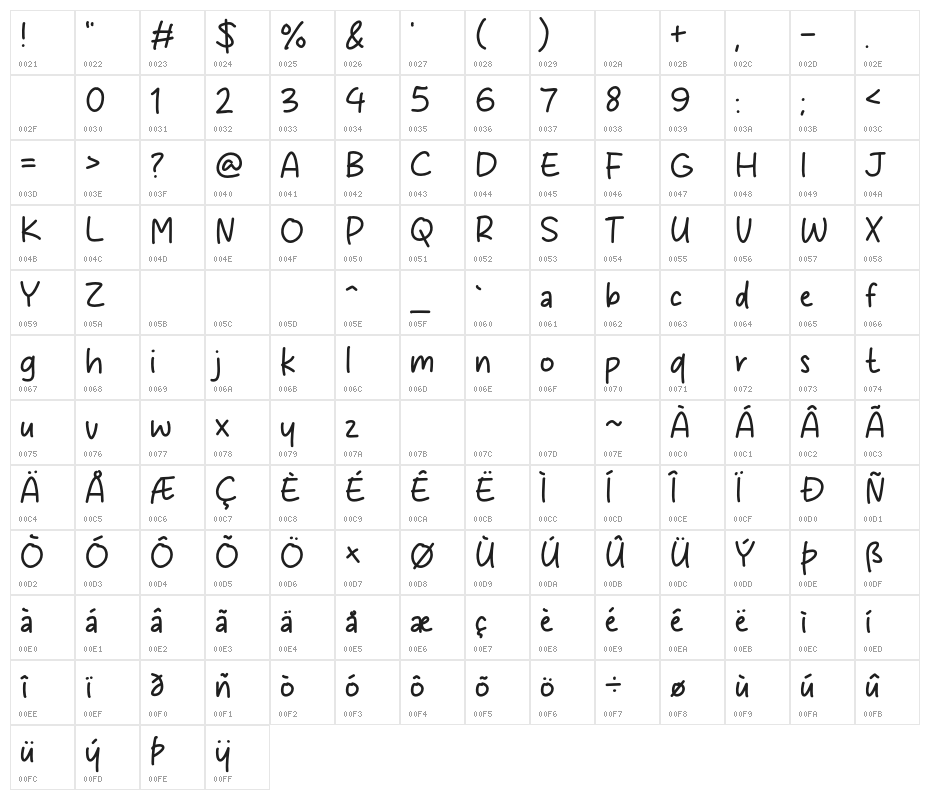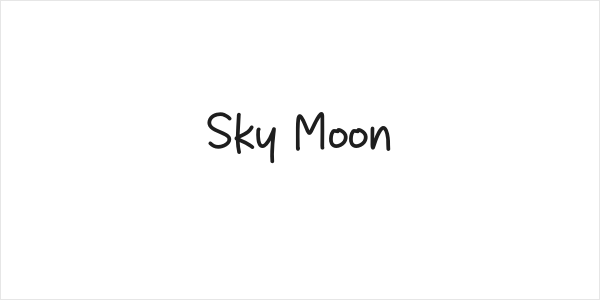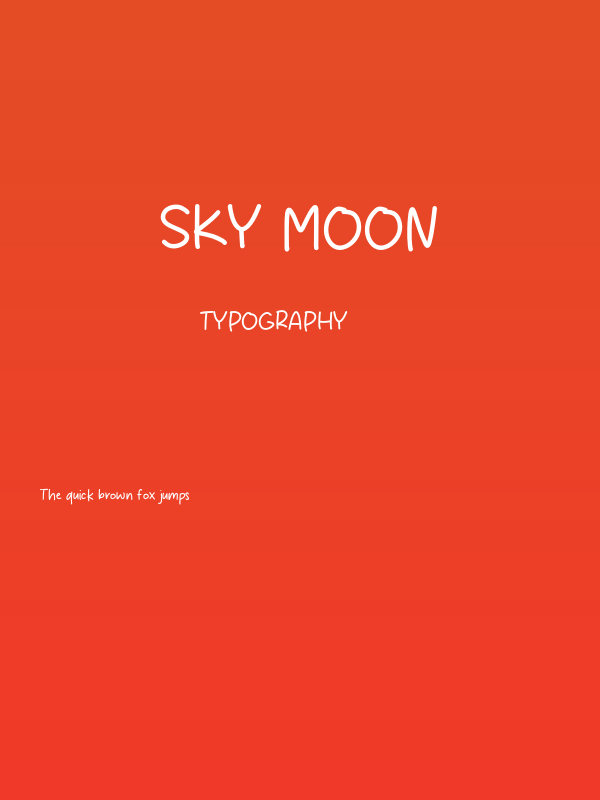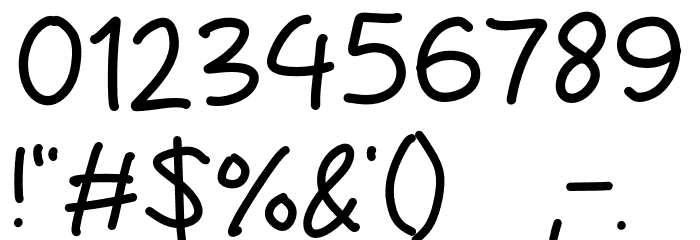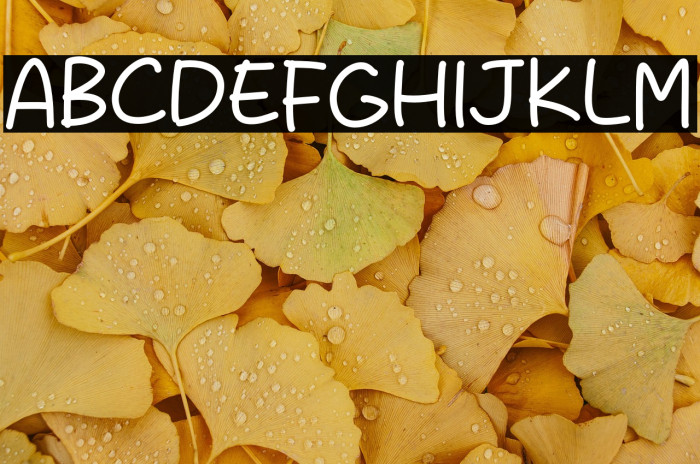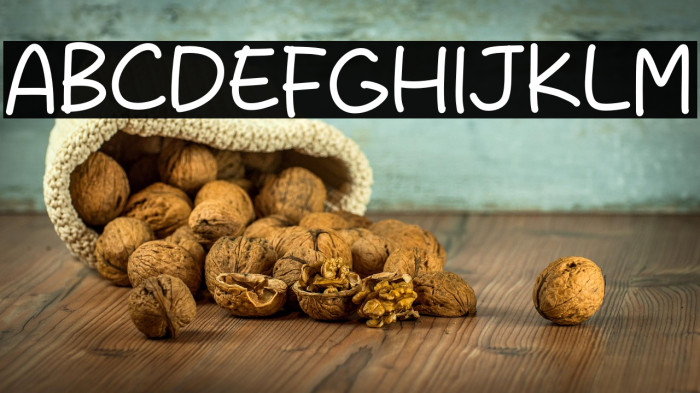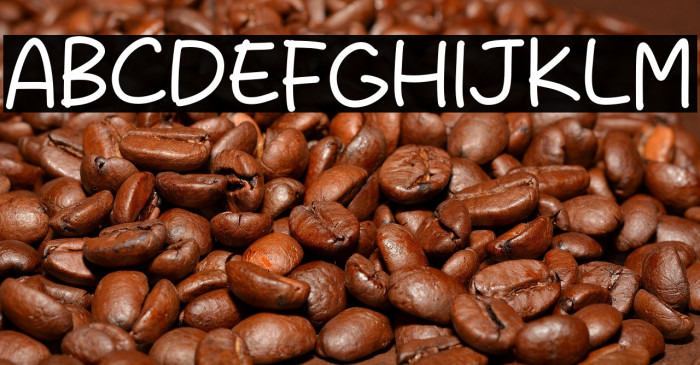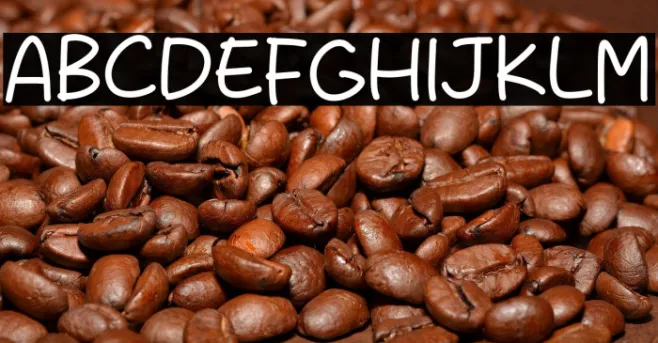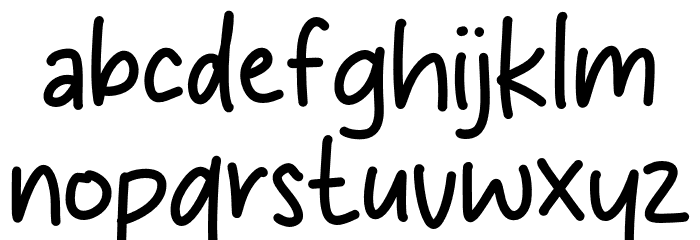
Sky Moon Font
Sky Moon Description
This font features a playful and casual handwritten style, characterized by smooth, rounded edges and a consistent stroke width. The letters are slightly tilted, giving a dynamic and informal appearance. The uppercase and lowercase letters maintain a uniform height, while the numerals and special characters integrate seamlessly with the overall design. The font's friendly and approachable nature makes it suitable for projects that require a personal touch. Its legibility is enhanced by the clear distinction between each character, making it versatile for various applications.